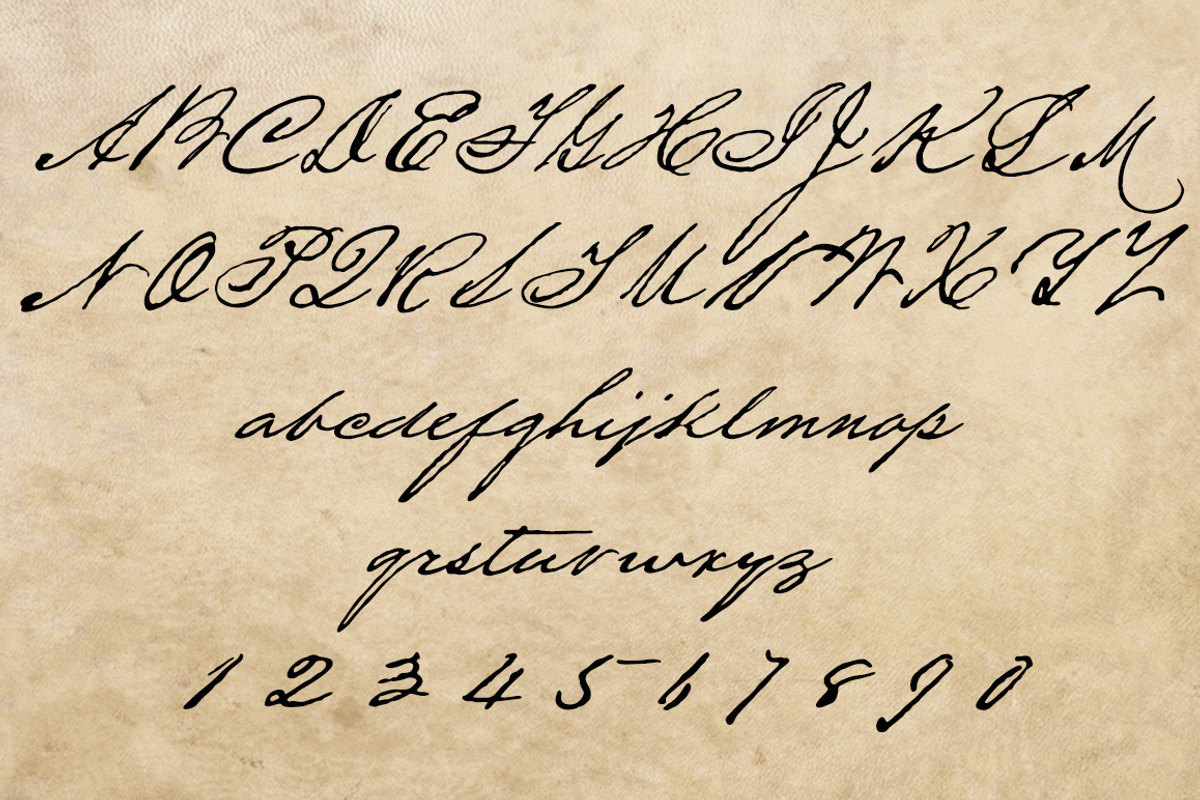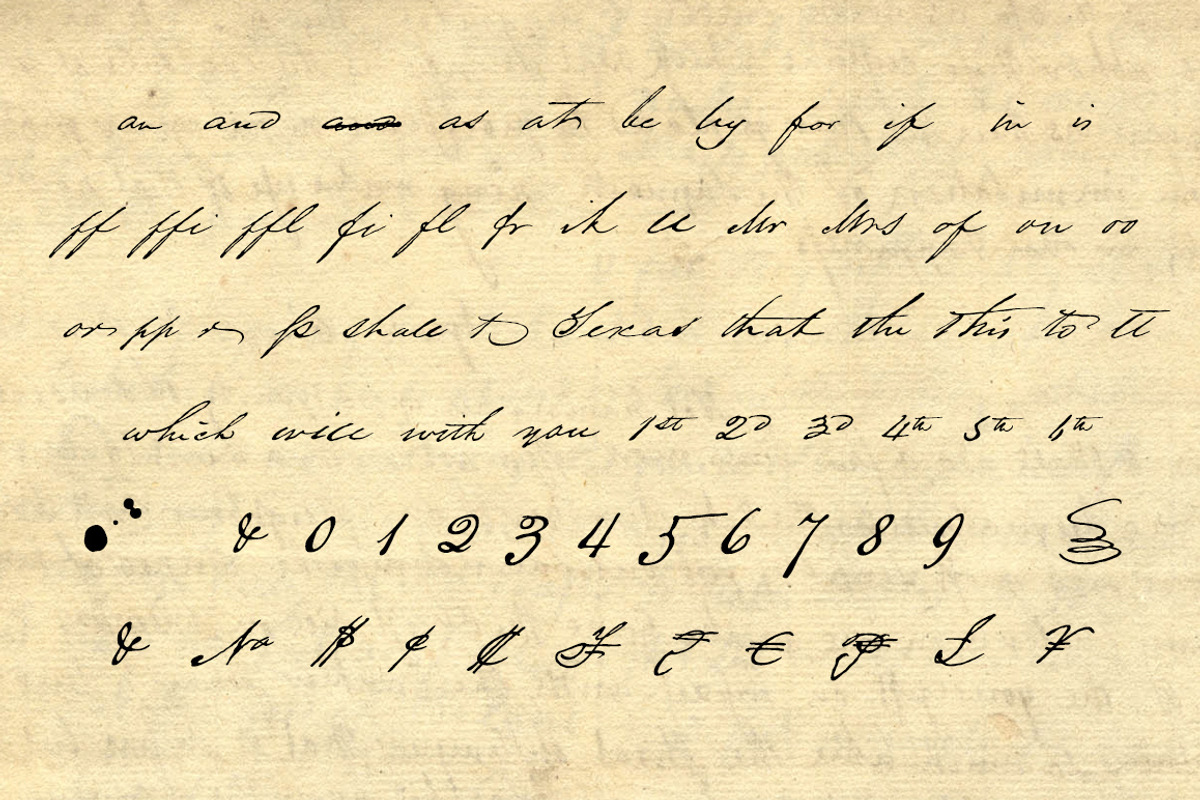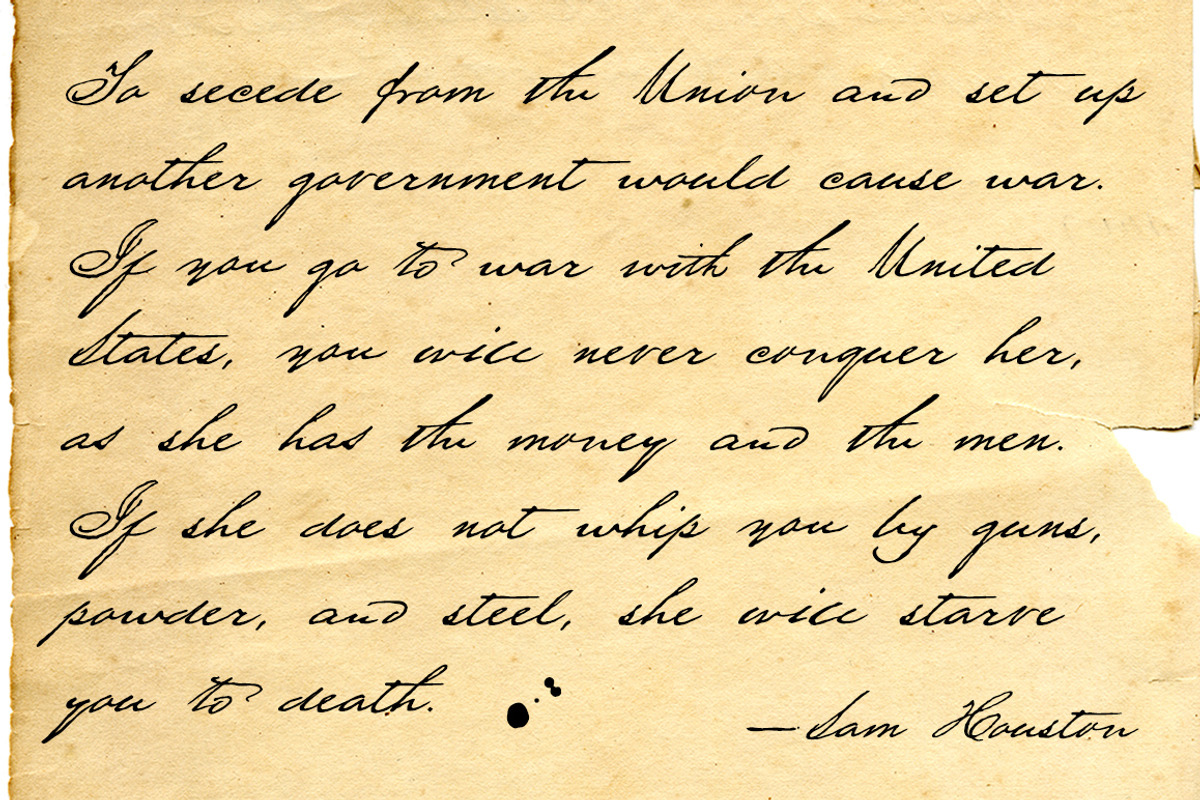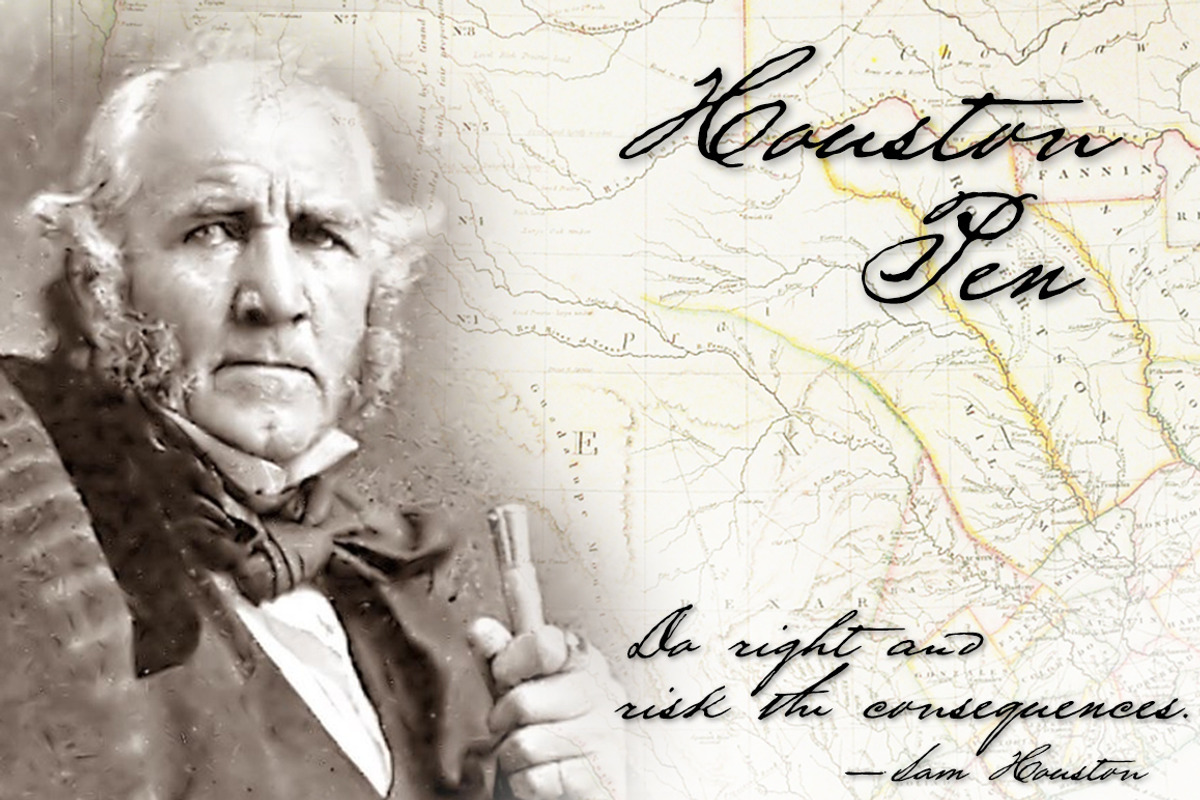
Houston Pen, a stylish old pen font
Houston Pen, a stylish old pen font by Three Islands Press is a font selected for branding, posters, packaging, typography.
- Houston Pen comes with many discretionary ligatures, contextual alternates, both lining and old-style figures, an inkblot or two, and comple
Why Houston Pen, a stylish old pen font is worth a look
Houston Pen, a stylish old pen font by Three Islands Press fits naturally into Branding, posters, packaging, typography.